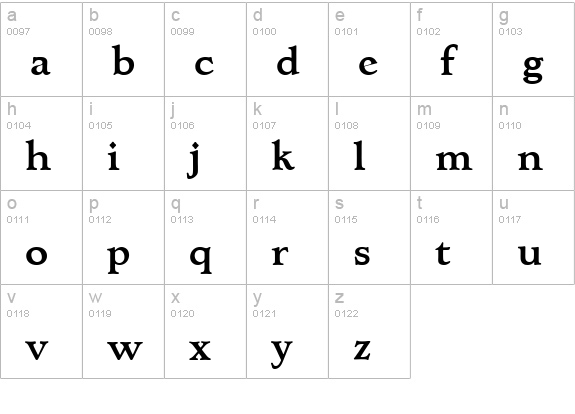
Lynton Bold Font Details
Lynton Bold is a strong, high-contrast variant in the Lynton typeface family \xE2\x80\x94 well suited to headlines, attention-grabbing titles, and strong calls-to-action.
Lynton Bold is a striking and versatile font that exudes confidence and modernity. Its bold weight and clean lines make it perfect for headlines, titles, and other attention-grabbing text. This font is free to download at FontsMarket.com, making it accessible to all designers and creators looking to add a touch of bold sophistication to their projects. With its strong presence and bold design, Lynton Bold is sure to make a statement in any design project, whether it be digital or print. Elevate your typography game with this sleek and stylish font today.